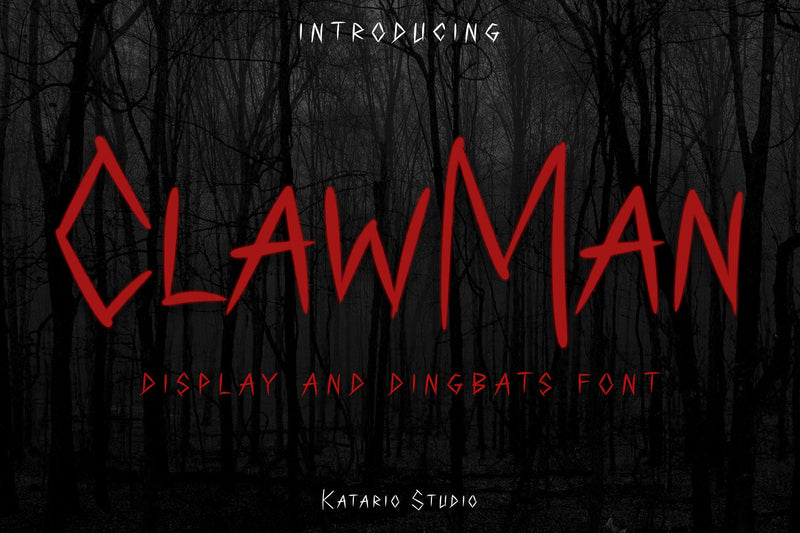
ClawMan | Halloween Theme Display and Dingbats Font
Clawman is an incredibly unique and original duo font (display and dingbats). It is ideal for each of your Halloween themed designs.